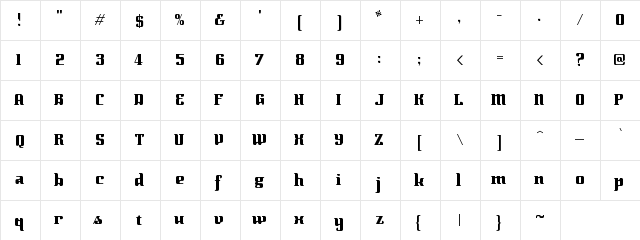
Allemande Regular
| Designer | Dan Evans |
Design Context for Allemande Typeface
Allemande is a composed and adaptable typeface that performs quietly and consistently across a wide range of design contexts.